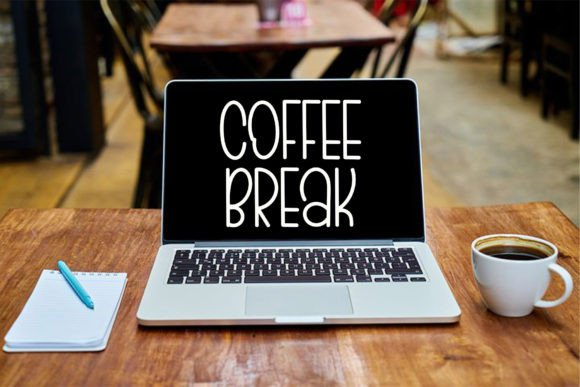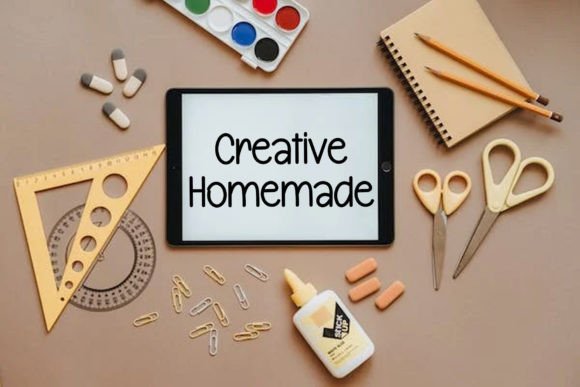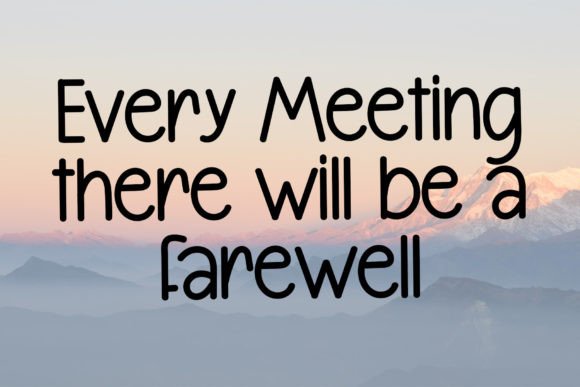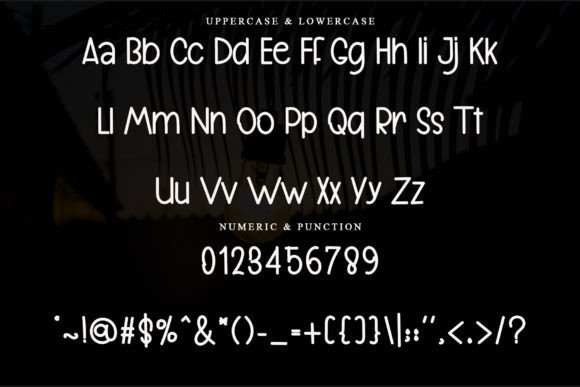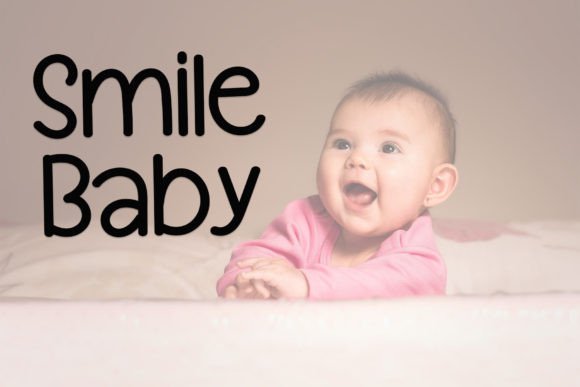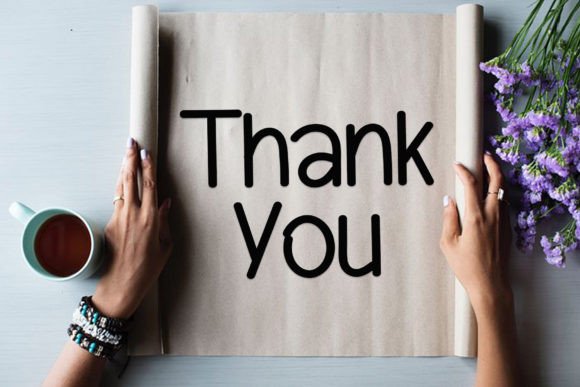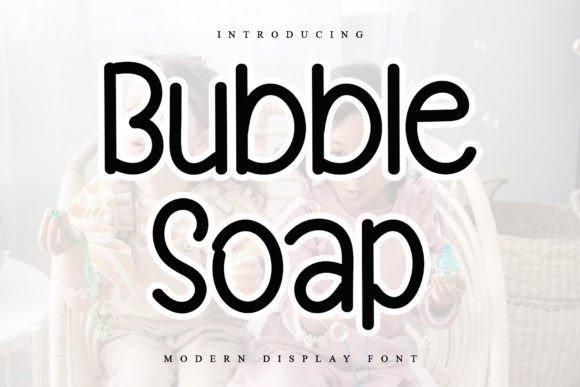
The Magic of Bubble Soap Font: Elevating Your Designs with Elegance
I’ll never forget the time I was working on a wedding invitation project, and my client asked for a font that exuded elegance and sophistication. I scoured the internet, tried countless fonts, but nothing seemed quite right. That was until I stumbled upon Bubble Soap Font. Its fluid strokes and natural flow instantly captivated me, and I knew I had found the perfect fit. In this article, I’ll share my experience with Bubble Soap Font, its features, and how to make the most of it in your designs.
- ✅ Elegant and sophisticated look that’s perfect for invitations, branding, and social media
- ✅ Fluid strokes and natural flow create a captivating visual effect
- ✅ Easy to read and works well in various design contexts
- ✅ Supports OpenType features, glyphs, and stylistic alternates for added creativity
- ⚠️ Limited availability of condensed or italic versions, which might limit its use in certain design scenarios
- ⚠️ Some users might find the font too ornate or decorative for very formal or traditional designs
- Experiment with OpenType features, such as ligatures and stylistic alternates, to add visual interest to your text
The Story Behind Bubble Soap Font
Bubble Soap Font was designed with the intention of creating a font that exudes elegance and sophistication. The designer aimed to craft a font that would be perfect for creative projects, such as invitations, branding, and social media. With its fluid strokes and natural flow, Bubble Soap Font is sure to add a touch of warmth and creativity to any design.
Q: What type of designs is Bubble Soap Font best suited for?
A: Bubble Soap Font is perfect for designs that require an elegant and sophisticated look, such as invitations, branding, and social media graphics.
Q: Does Bubble Soap Font support OpenType features?
A: Yes, Bubble Soap Font supports OpenType features, including ligatures, stylistic alternates, and glyphs.